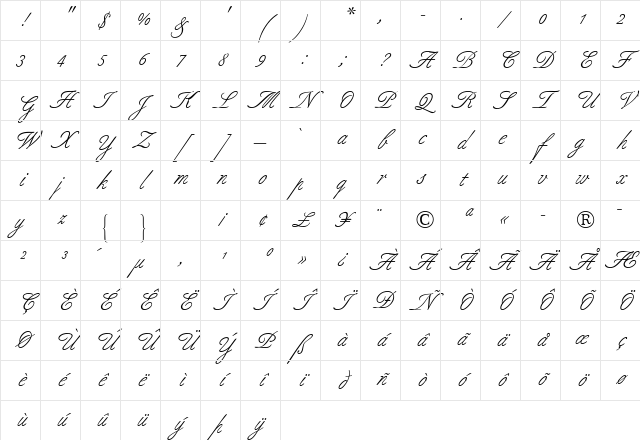
Berthold Script Regular Italic
Complete Berthold Script Regular Italic glyph index. Displaying only characters natively supported by Berthold Script Regular Italic font.
Design Context for Berthold Script Regular
Berthold Script Regular flows with the natural rhythm of handwritten lettering, making it ideal for designs that call for warmth and personal expression.
Font Pairing: Combine Berthold Script Regular with a simple geometric sans for maximum contrast - the tension between flowing curves and clean structure is a classic typographic pairing.
Pro Tip: Use Berthold Script Regular for short runs of text - names, titles, or taglines. Extended body copy in script faces tires the eye quickly.